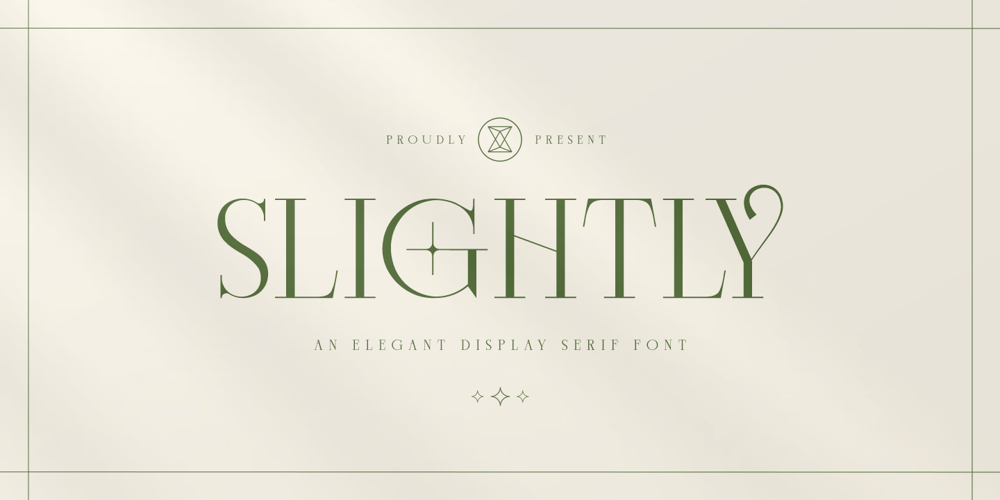
Slightly
Slightly font
Slightly Font Family was designed by Hayinah and published by Rockboys Studio. Slightly contains 1 styles and family package options. Slightly is an elegant, thin lettered and distinct serif font. Suitable to a wide variety of designs due to its neat and clean style, this font has the potential to become your favorite go-to font, no matter the occasion!–Uppercase